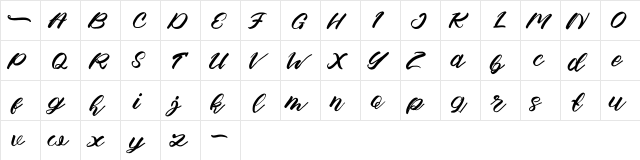
Apem Regular
Design Context for Apem Typeface
Apem is a composed and adaptable typeface that performs quietly and consistently across a wide range of design contexts.